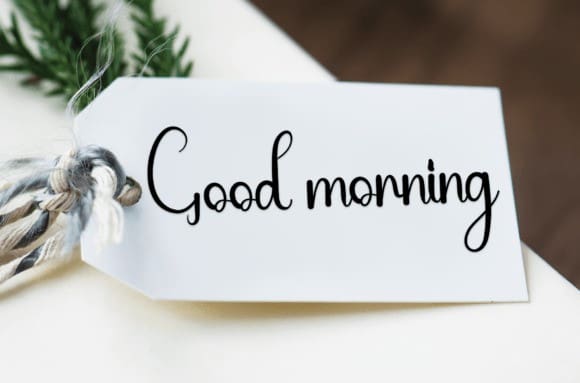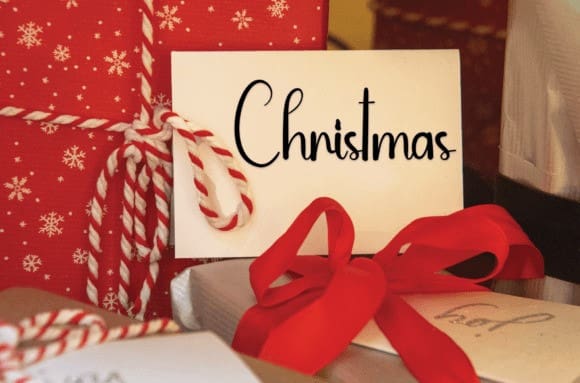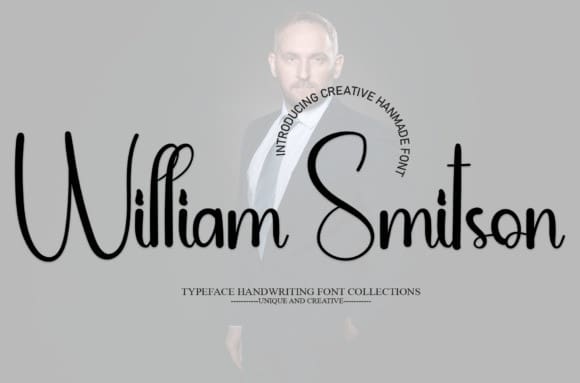
William Smitson Typeface
William Smitson Typeface, is a sweet and friendly handwritten font. Fun and relaxed, this font is ideal for writing wedding invitations, cards, or any other design that might need a lovely touch!